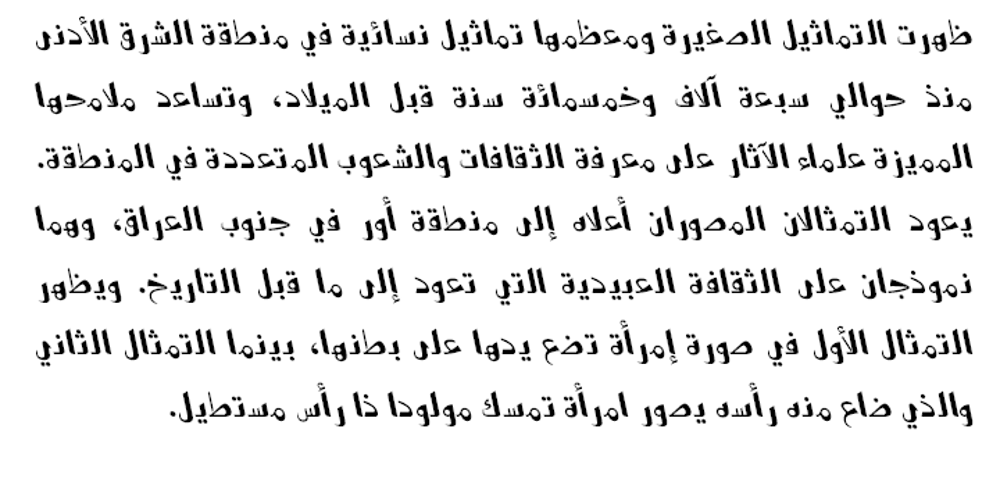
Layal Font Family was designed by Saad D. Abulhab and published by Arabetics. Layal contains 10 styles and family package options. Layal is an Arabetic type design with a calligraphic flavor. It follows the guidelines of the Mutamathil Taqlidi type style with one glyph for every basic Arabic Unicode character or letter, as defined in Unicode Standards version 5.1, and one additional, final-position, glyph for each Arabic letter that is normally connected with other letters from both sides in traditional cursive Arabic strings. Layal employs variable x-height values. It includes all required Lam-Alif ligatures and uses ligature substitutions and selected marks positioning but it does not use any other glyph substitutions or forming. Text strings composed using types of this family are non-cursive with stand-alone isolated glyphs. Tatweel (or Kashida) glyph is a zero width space. Keying it before any glyph will display that glyph isolated form. Keying Tatweel before Alif Lam Lam Ha will display the Allah ligature. Layal family includes both Arabic and Arabic-Indic numerals; all required diacritic marks, Allah ligature, in addition to standard English keyboard punctuations and major currency symbols. Layal is available in normal, bold, black, light, and extra light, each both in regular and italic styles.